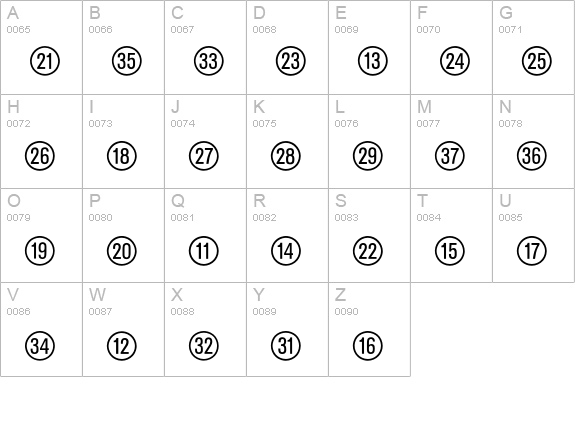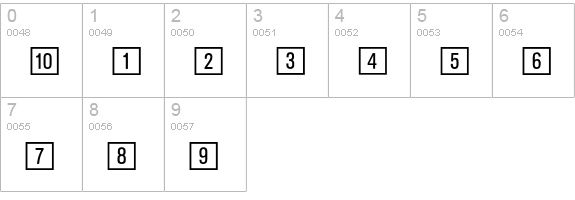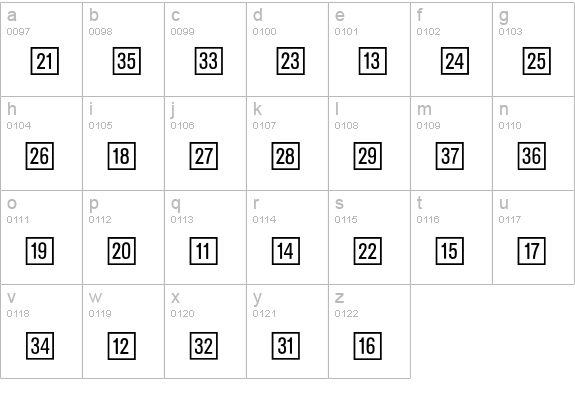
Katalogziffern Positiv Font Details
Katalogziffern Positiv font is a stunning typeface that exudes elegance and sophistication. Its sleek and modern design makes it perfect for a wide range of design projects, from branding to editorial layouts. The clean lines and precise curves of this font give it a timeless appeal that will never go out of style. What sets Katalogziffern Positiv font apart is that it is not only visually captivating, but also incredibly versatile. Its versatility lies in its ability to effortlessly adapt to various design themes and aesthetics. Whether you're creating a minimalist logo or a bold headline, this font will elevate your design and make it stand out. One of the best features of Katalogziffern Positiv font is that it is free. Yes, you read that right. This font is freely available to download at FontsMarket.com. Now you can enjoy the beauty and functionality of this incredible font without having to spend a dime. It's a fantastic opportunity to enhance your design projects without breaking the bank. So, why wait? Don't miss out on the chance to add Katalogziffern Positiv font to your font collection. Download it today from FontsMarket.com and unlock a world of creative possibilities. Whether you're a professional designer or a hobbyist, this font will undoubtedly become a valuable asset in your creative toolkit. Embrace its elegance, versatility, and the fact that it won't cost you a penny.